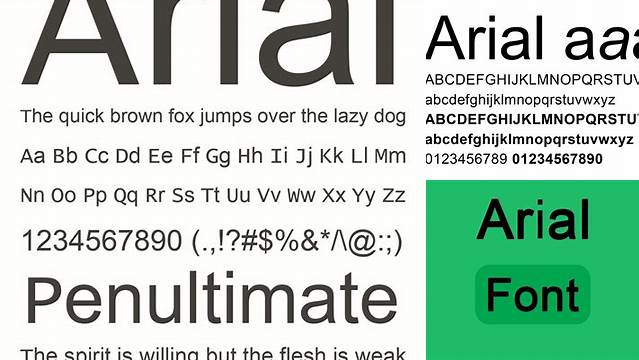
Arial, the ubiquitous sans-serif typeface, is a staple in the world of digital typography. Its clean lines and versatility make it a go-to choice for everything from body text to headlines. But where can you find a free download Arial font? And how can you ensure you're using it legally? Let’s dive in, guys, and explore everything you need to know about getting your hands on this classic font.
Arial Font: A Brief Overview
Before we jump into the download specifics, let's take a moment to appreciate what Arial brings to the table. Created in 1982 by Patricia Saunders and Robin Nicholas for Monotype Typography, Arial was designed as a metrically compatible alternative to Helvetica. This means it shares similar character widths, allowing for seamless substitution in documents. The result is a highly readable and versatile font that’s perfect for a wide range of applications. Whether you're crafting a professional report, designing a website, or creating marketing materials, Arial's neutrality and clarity make it a fantastic choice. Its clean, unadorned letterforms ensure legibility even at small sizes, and its compatibility across different platforms and devices further solidifies its status as a digital workhorse. So, if you're looking for a font that's both reliable and aesthetically pleasing, Arial is definitely worth considering. But remember, finding a reliable and legal source for a free download Arial font is crucial, so let's explore where you can find one.
Using Font Subscription Services (e.g., Adobe Fonts)
Another fantastic way to access Arial (and tons of other fonts!) legally is through font subscription services. These services have become increasingly popular in recent years, and for good reason. They offer a convenient and cost-effective way to access a vast library of high-quality fonts for a monthly or annual fee. One of the most well-known and widely used font subscription services is Adobe Fonts, which is included with most Adobe Creative Cloud subscriptions. If you're already using Adobe software like Photoshop, Illustrator, or InDesign, chances are you already have access to Adobe Fonts. And guess what? Arial is part of their font library! This means you can easily activate Arial and use it in your projects without having to purchase a separate license. The beauty of font subscription services is that they handle the licensing complexities for you. As long as you maintain your subscription, you have the right to use the fonts in your projects, both personal and commercial. Plus, you get access to a constantly growing library of fonts, so you'll never run out of options. So, before you go searching for a free download Arial font, consider whether a font subscription service might be a better fit for your needs. It’s a great way to stay legal and expand your typographic horizons.
Dangers of Downloading Fonts from Unofficial Sources
Okay, guys, let's talk about the dark side of the internet for a minute. When it comes to fonts, downloading from unofficial sources is a big no-no. We know the allure of a free download Arial font can be strong, but trust us, it's not worth the risk. There are several dangers lurking in those shady corners of the web. First and foremost, you could be downloading malware or viruses along with the font file. These malicious programs can wreak havoc on your computer, steal your personal information, or even hold your files ransom. Secondly, you're likely violating copyright law. Distributing and downloading fonts without a proper license is illegal, and you could face hefty fines or even legal action. Finally, fonts from unofficial sources are often of poor quality. They might be incomplete, have incorrect kerning or spacing, or simply look terrible. So, save yourself the headache and potential legal trouble by sticking to legitimate sources for your fonts. We've already discussed several safe ways to access Arial, so there's really no need to take the risk. Remember, your computer's security and your legal standing are more important than saving a few bucks.
Identifying a Safe Font Download Source
So, how can you tell if a font download source is safe? It's a crucial skill to develop in today's digital world. Here are a few key things to look for. First, check the website's reputation. Is it a well-known and respected font foundry or distributor? Companies like Monotype, Adobe, and MyFonts have established reputations for providing legitimate fonts. Look for the padlock icon in your browser's address bar, which indicates a secure connection (HTTPS). Be wary of websites that look amateurish, have excessive ads, or offer fonts for free download Arial font without any mention of licensing. Read reviews and check for user feedback online. If other users have had negative experiences with a particular website, that's a major red flag. Finally, pay attention to the file format. Legitimate font files typically come in OTF (OpenType) or TTF (TrueType) format. If you're downloading a font in a different format, especially an executable file (.exe), be extra cautious. By following these tips, you can significantly reduce your risk of downloading malware or infringing on copyright. Remember, when it comes to fonts, it's always better to be safe than sorry.